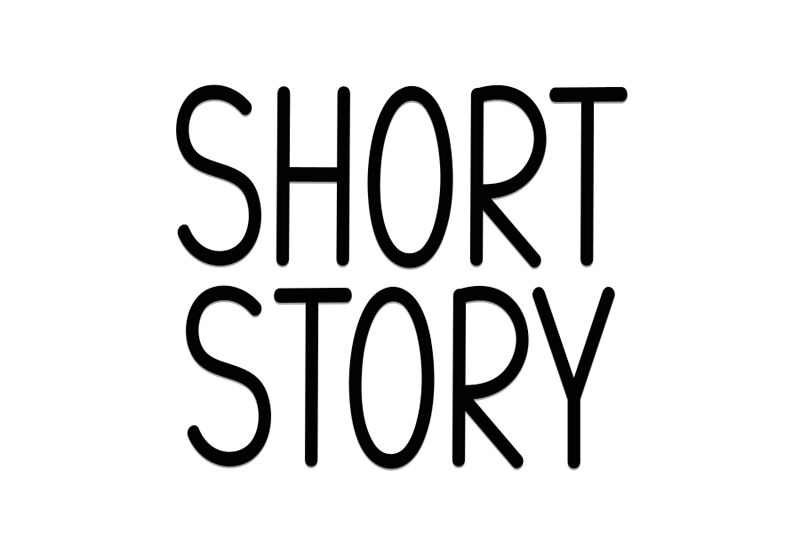
Short Story
Short Story font by Creatype Designer is a condensed handwritten treasure that marries classy calligraphic influences with a contemporary twist. This free font captivates with its elegance and simplicity, making it perfect for enhancing creative projects.
Its versatility shines in applications ranging from eye-catching titles to refined stationery designs. Whether you're crafting unique letterheads or adding flair to digital and print materials, Short Story offers a fresh, engaging style that invites innovation.